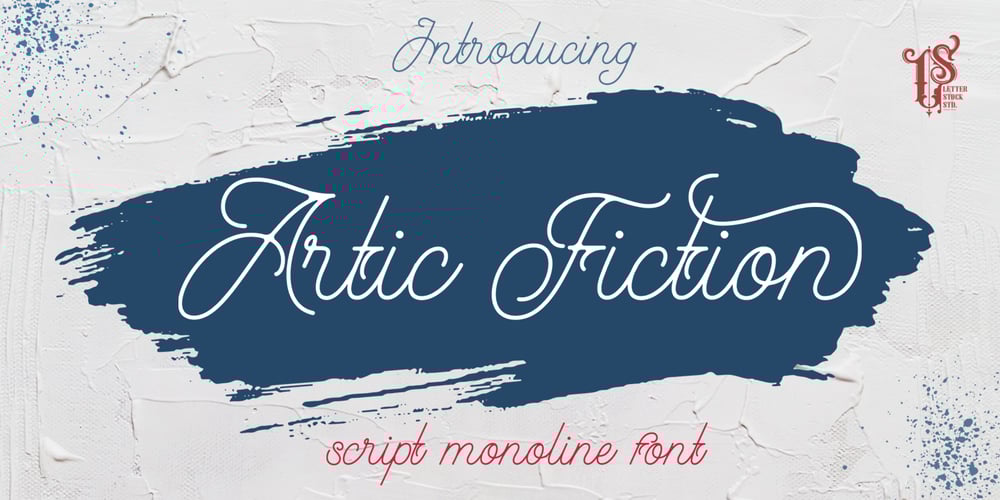
Artic Fiction Font Family was designed by Studio LetterStock and published by LetterStock. Artic Fiction contains 1 styles and family package options. Artic FictionThis font was inspired from lettering design that i saw online, It was crafted by hand specially to add natural handmade feeling in its brand identity than i make it clean with pentool.If you looking for Script Monoline Font for your authentic design, this font is a great choice for that. Artic Fiction is original hand writting font its perfect for lettering design or event logotype.Opentype featuresArtic Fiction font is very good looking in logo, labels, t-shirt prints, product packaging, invitations, advertising and others.What includes* Multilingual support (Western European characters).This fonts works with folowing languages:English, Danish, Dutch, Estonian, Faroese, Filipino, Finnish, French, German, Hungarian, Icelandic, Irish, Italian, Norwegian, Polish, Portuguese, Spanish, Swedish.Thank you for using this font.LS